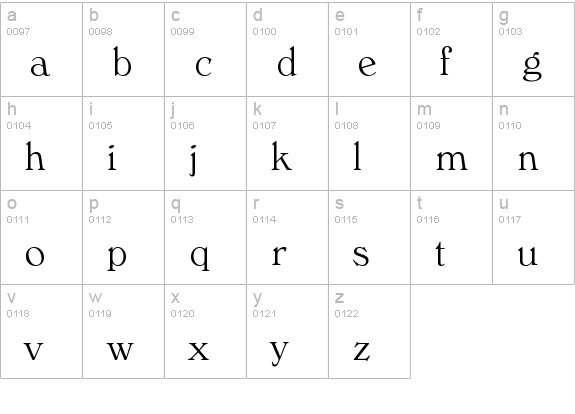
VeronaSerial-Xlight-Regular Font Details
VeronaSerial-Xlight-Regular is the standard, neutral variant in the VeronaSerial typeface family \xE2\x80\x94 well suited to general body text, paragraphs, and standard typographic work.
VeronaSerial-Xlight-Regular is a stunning and elegant font that exudes sophistication and modernity. With its clean lines and delicate serifs, this font is perfect for adding a touch of refinement to any design project. The VeronaSerial-Xlight-Regular font strikes the perfect balance between classic and contemporary, making it versatile and suitable for a wide range of applications. What's even better is that VeronaSerial-Xlight-Regular is available for free download at FontsMarket.com. This means you can easily access this exquisite font and elevate your projects without any cost. Whether you're designing a logo, creating invitations, or crafting marketing materials, VeronaSerial-Xlight-Regular will bring a touch of class and professionalism to your work. Download this font today and see the difference it can make in your designs.